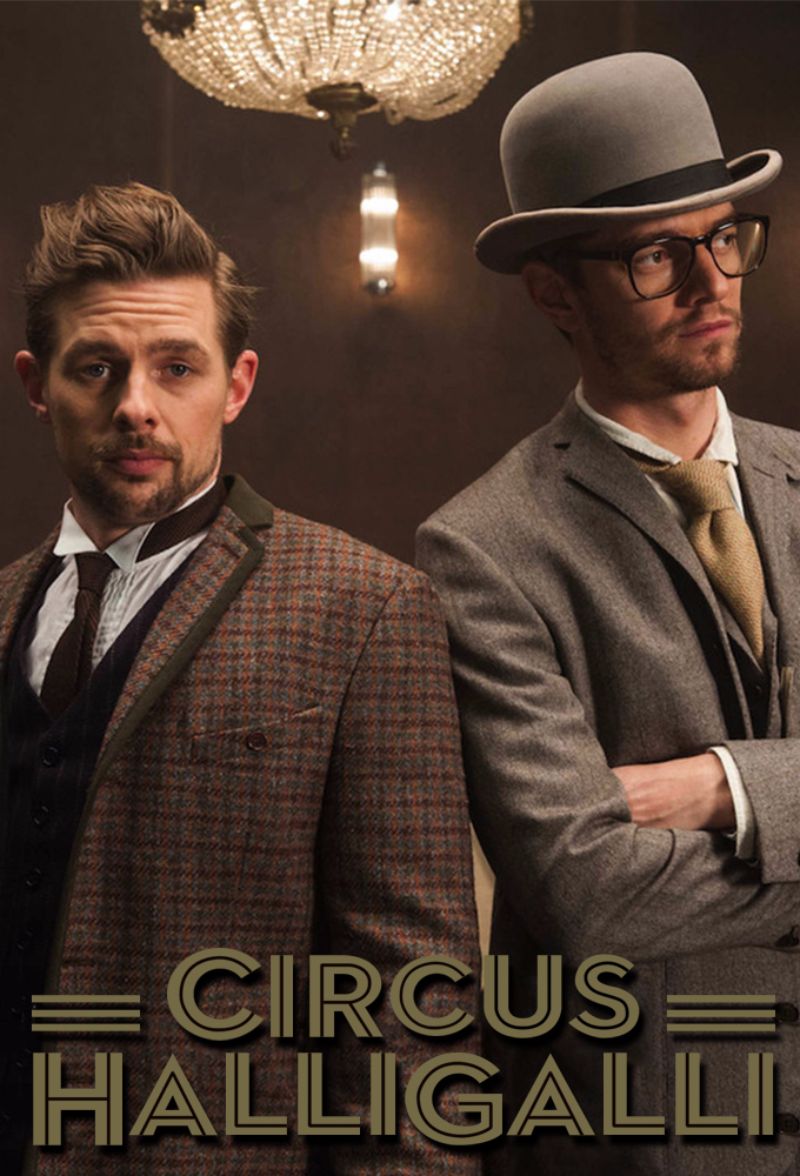
Circus HalliGalli (TV show) Font
ComedyCircus HalliGalli was a German late-night comedy talk show that aired from 2013 to 2017, hosted by Joko Winterscheidt and Klaas Heufer-Umlauf.
The TV show's title is displayed using the Neutra No. 2 Display Inline font, a geometric sans-serif typeface created by Christian Schwartz for House Industries. More details about the font family are available here.